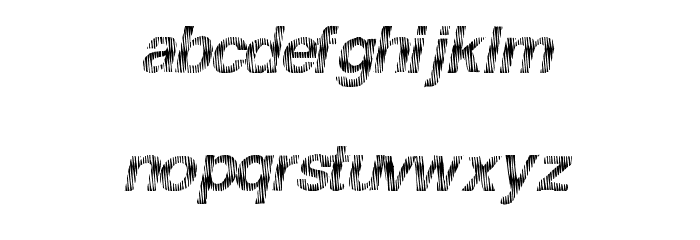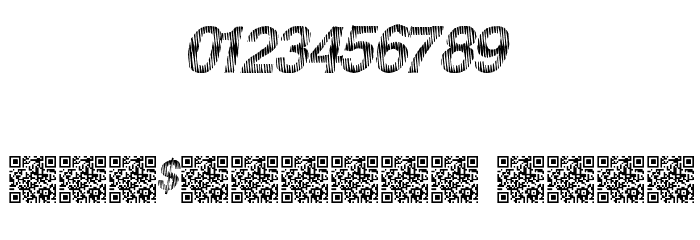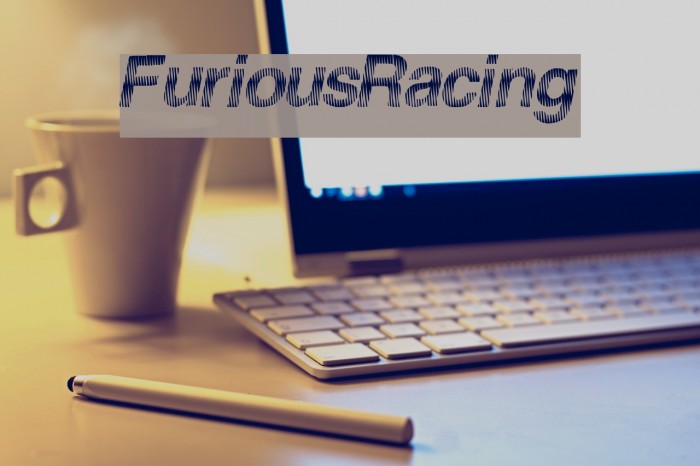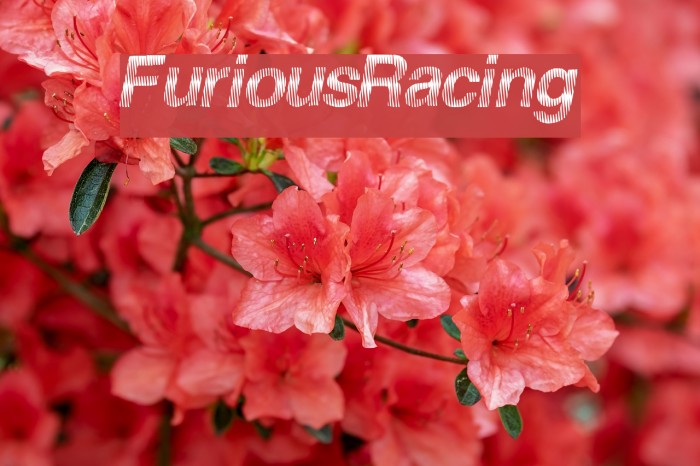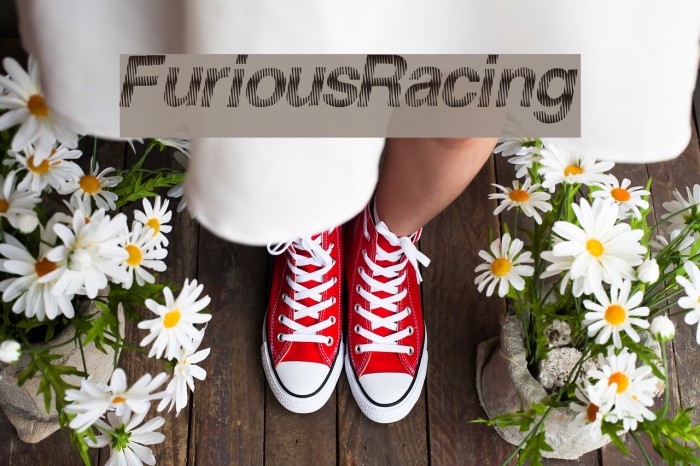
FuriousRacing Font
This font exudes a dynamic and energetic vibe, characterized by its italicized and slanted letterforms that suggest movement and speed. The strokes are composed of diagonal lines, giving it a textured appearance that adds depth and interest. The uppercase and lowercase letters maintain a consistent style, with a slight slant that enhances the sense of motion. The numerals and special characters follow the same design principles, ensuring uniformity across all glyphs. This font is ideal for projects that require a sense of urgency or excitement, such as racing-themed designs or action-packed branding.
A dynamic, italicized font with textured diagonal strokes, perfect for energetic designs.
- Proposed Projects: Ideal for racing-themed designs, sports branding, action movie posters, and dynamic advertisements.